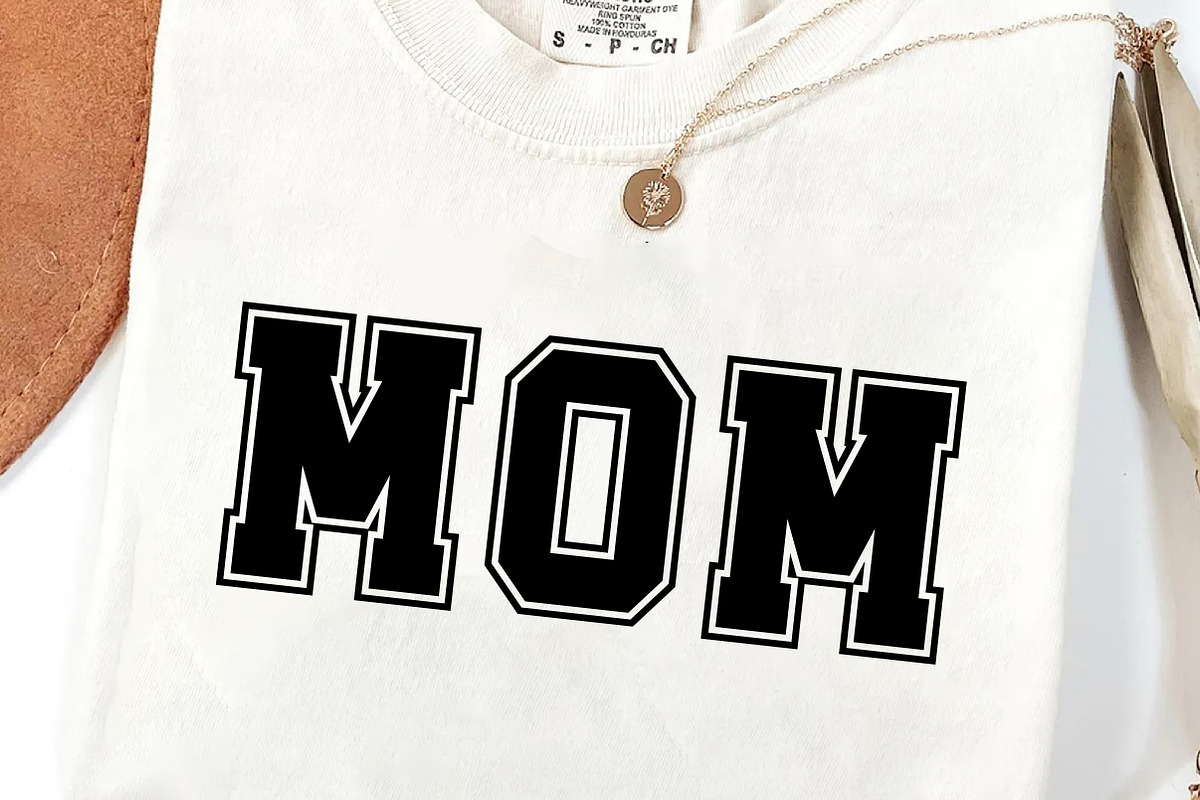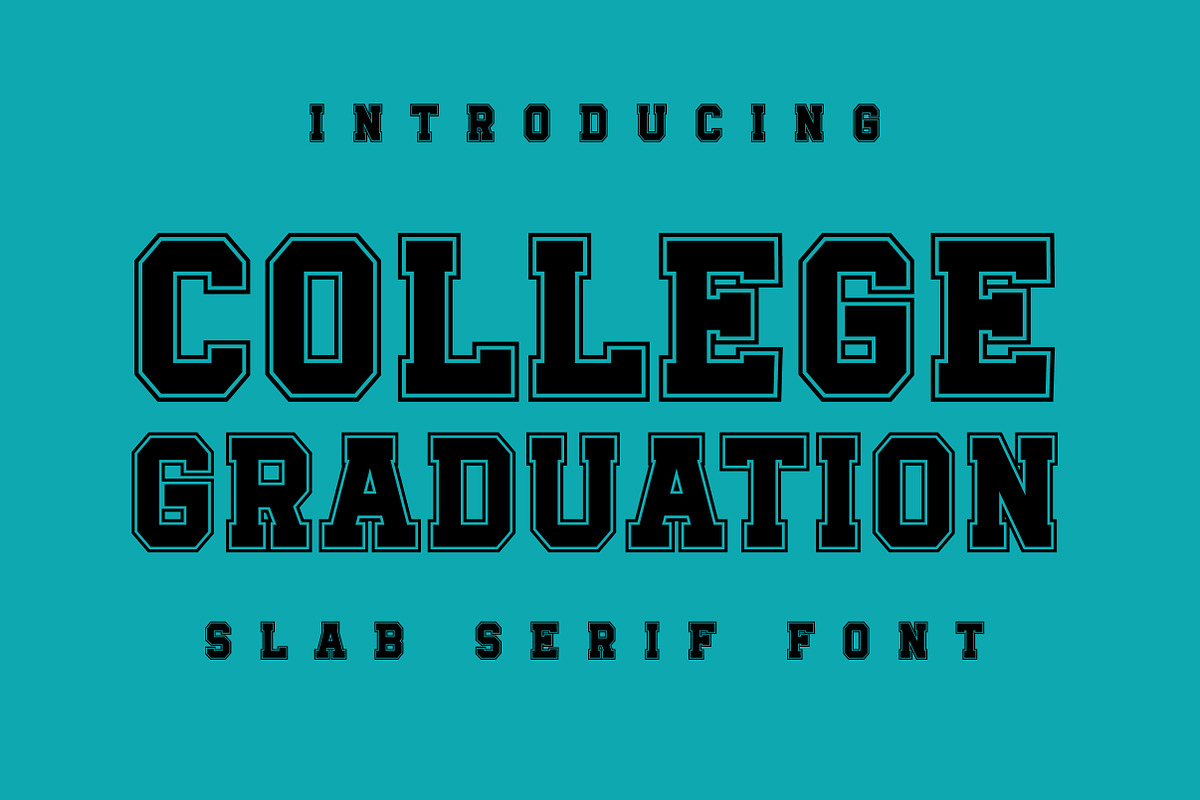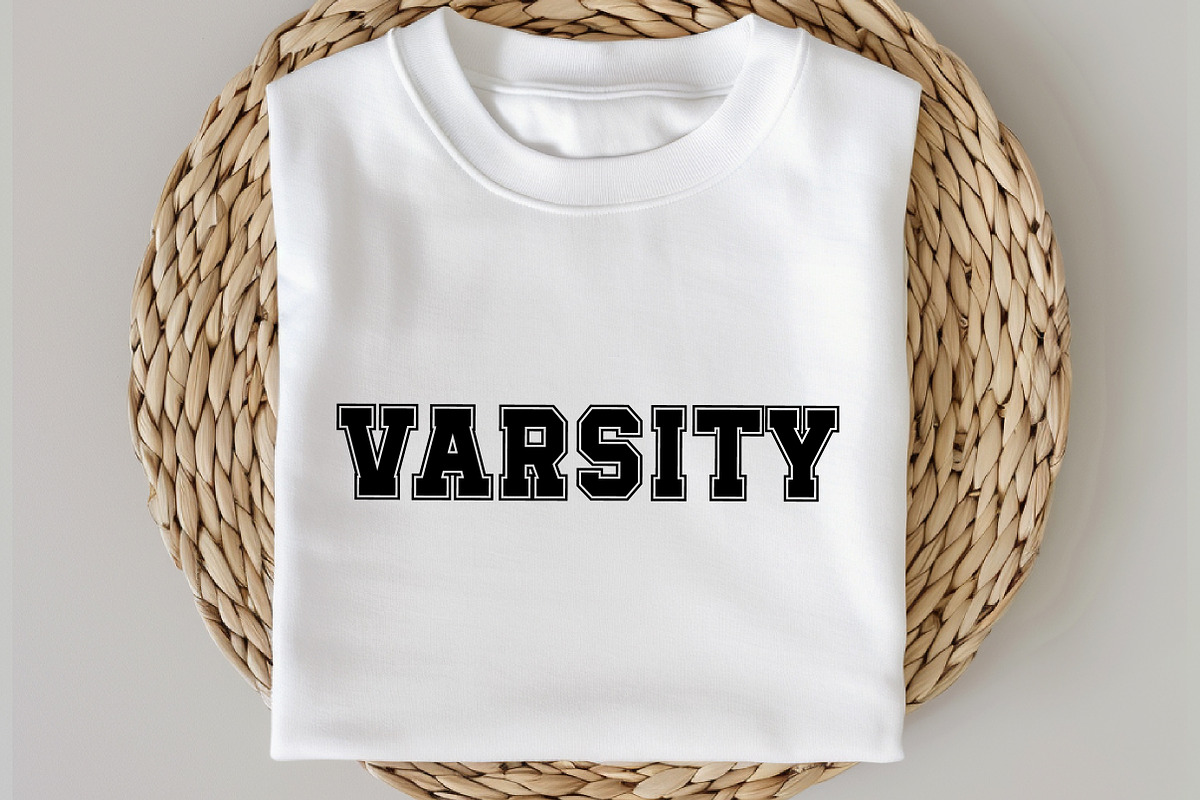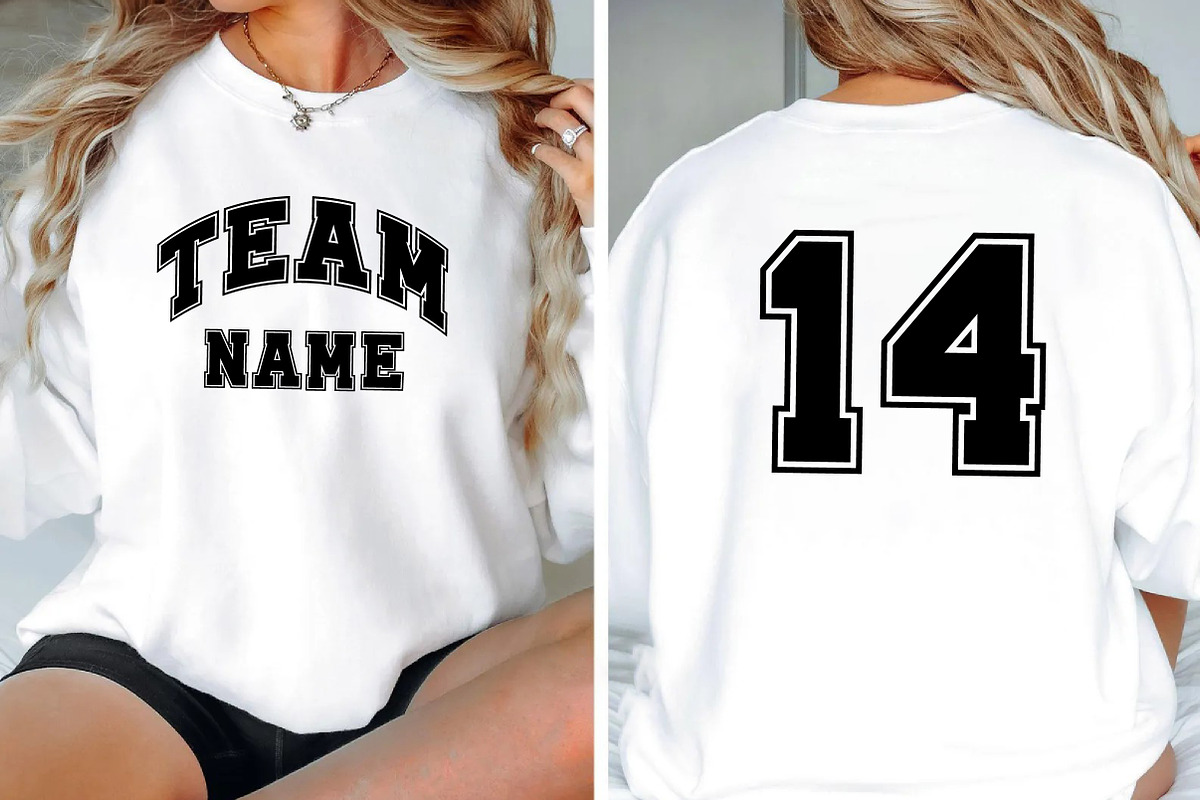
College Graduation
College Graduation is a strong slab serif font. This is a varsity structure font. The pride and boldness of its features will delight you. This typeface perfect for jerseys, football, baseball, t-shirts, team logos, basketball and gym projects. It is famous for sports lovers. Thanks